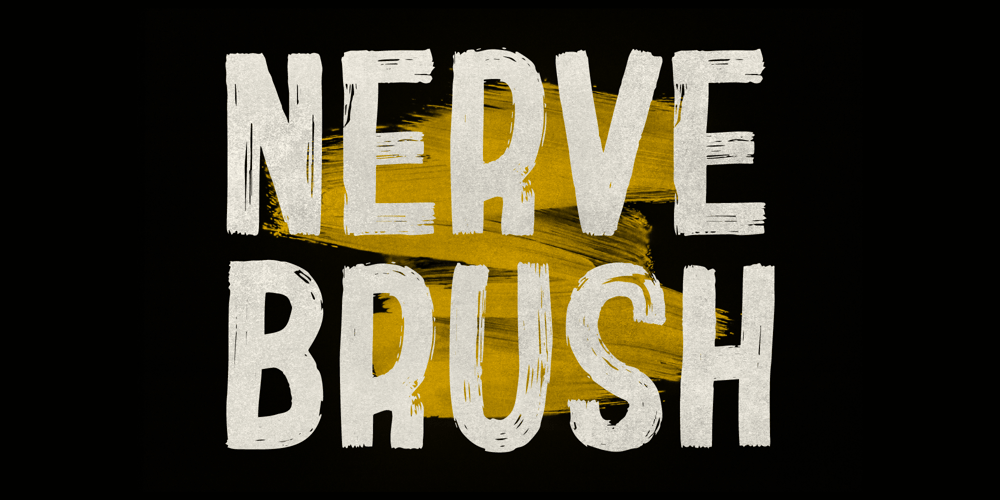
Nerve Brush
Nerve Brush font
Nerve Brush Font Family was designed by Irpan Maulana and published by Create Big Supply. Nerve Brush contains 1 styles and family package options. Invention is a sans serif brush font that has bold, strong, bold characters. This will add a very unique and powerful touch to your design. This font is PUA encoded which means you can access all the glyphs and sweeps easily Features:All UppercaseNumbers and punctuationMultilingualPUA Encoding